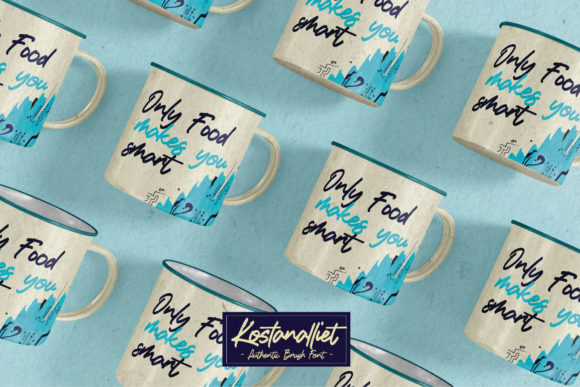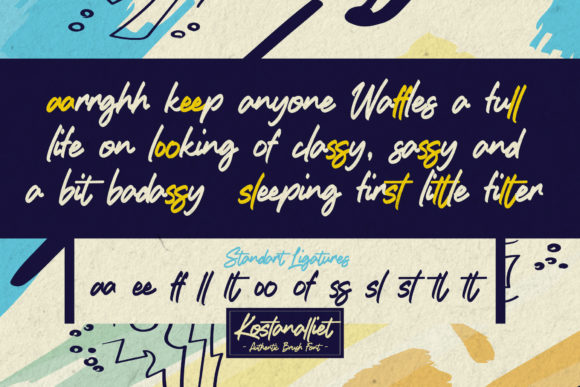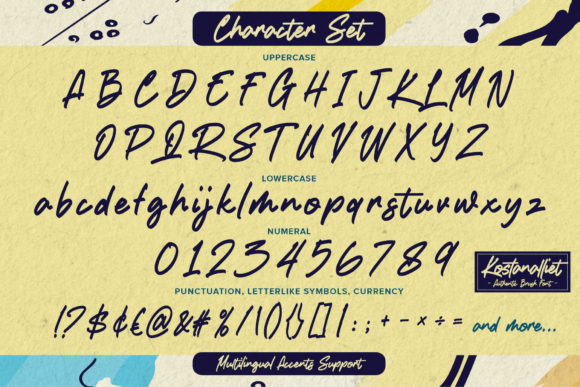
Introduction to Kostanalliet Font
There’s something special about the first spark of creativity – the moment when an idea begins to take shape, and the possibilities start to unfold. For designers, this moment often comes when discovering the perfect design resource, one that elevates their project from ordinary to extraordinary. And that’s exactly what the Kostanalliet Font promises to deliver.
With its authentic brush handwritten style and classy characters, this high-quality font is the perfect addition to any creative project. Its clear and dramatic movement makes it ideal for a wide range of applications, from logos and printed quotes to invitations and product packaging. And the best part? The Kostanalliet Font is available for free download, making it an invaluable resource for designers on a budget.
Key Features of Kostanalliet Font
- Unique, modern design aesthetic that can add a touch of sophistication to any creative project.
Honest Review: Kostanalliet Font
As a designer, I’m always on the lookout for unique and high-quality fonts to enhance my creative projects. The Kostanalliet Font is a great addition to my design resource library, offering a fresh and modern aesthetic.
- ✨ High-quality design: The font has a crisp, clean look that makes it perfect for use in a variety of creative projects.
- ⚠️ Limited character set: The Kostanalliet Font has a limited character set, which may not be ideal for projects that require a wide range of characters.
- ⚠️ Not suitable for large text: Due to its modern design, the font may not be the best choice for large text sizes, as it can become difficult to read.
Overall, I’m impressed with the Kostanalliet Font. While it has some limitations, its high-quality design and free download make it a valuable addition to any designer’s library. With careful use, this font can help elevate even the most creative projects to the next level.
Tips for Getting the Most Out of Kostanalliet Font
For the best results, use Kostanalliet Font in conjunction with other high-quality design resources. Experiment with different font sizes, colors, and combinations to create unique and eye-catching designs. You can also use the font in a creative project to add a touch of elegance and sophistication.
Kostanalliet Font is suitable for a wide range of design projects, including branding, marketing materials, and digital publications. Its high-quality design and transparent background make it an ideal choice for designers who want to create professional-looking designs without the hassle of complicated design software.